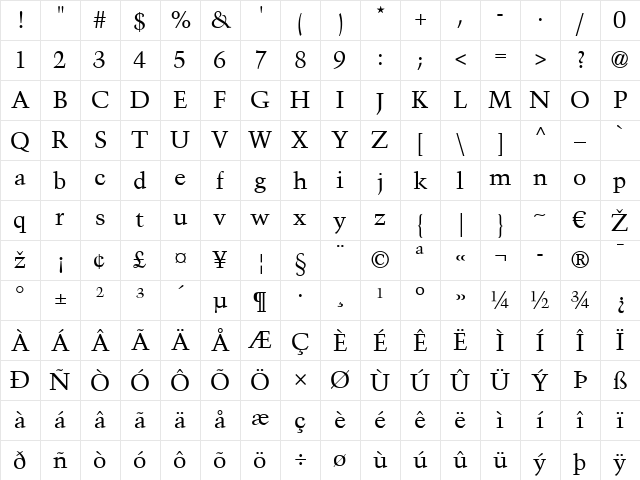
TrumpMediaeval LT Regular
TrumpMediaeval LT Family
Design Context for TrumpMediaeval LT
TrumpMediaeval LT is a composed and adaptable typeface that performs quietly and consistently across a wide range of design contexts. Its slender proportions lend an understated elegance to any composition.